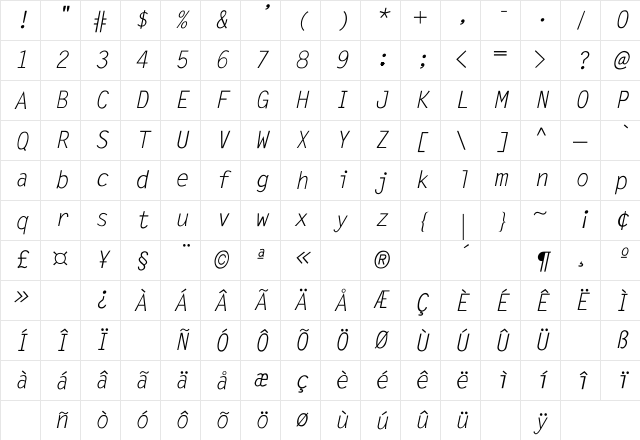
Krosky Italic 1 Regular
Design Context for Krosky Italic 1
Krosky Italic 1 is a composed and adaptable typeface that performs quietly and consistently across a wide range of design contexts. The slanted form adds forward momentum and visual energy.
Pro Tip: Use Krosky Italic 1 for emphasis, pull quotes, and subheadings where its slanted energy can add rhythm to the layout.